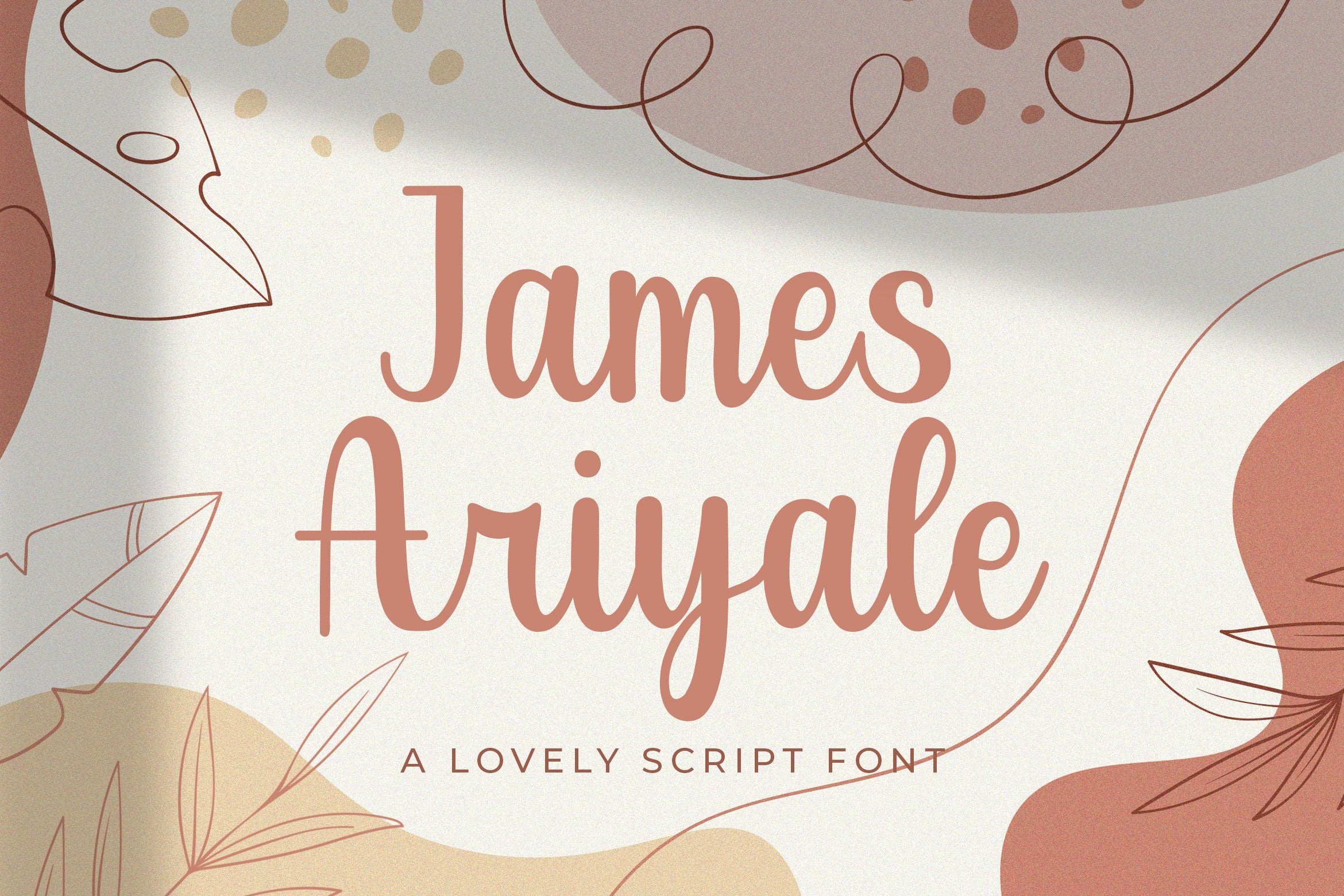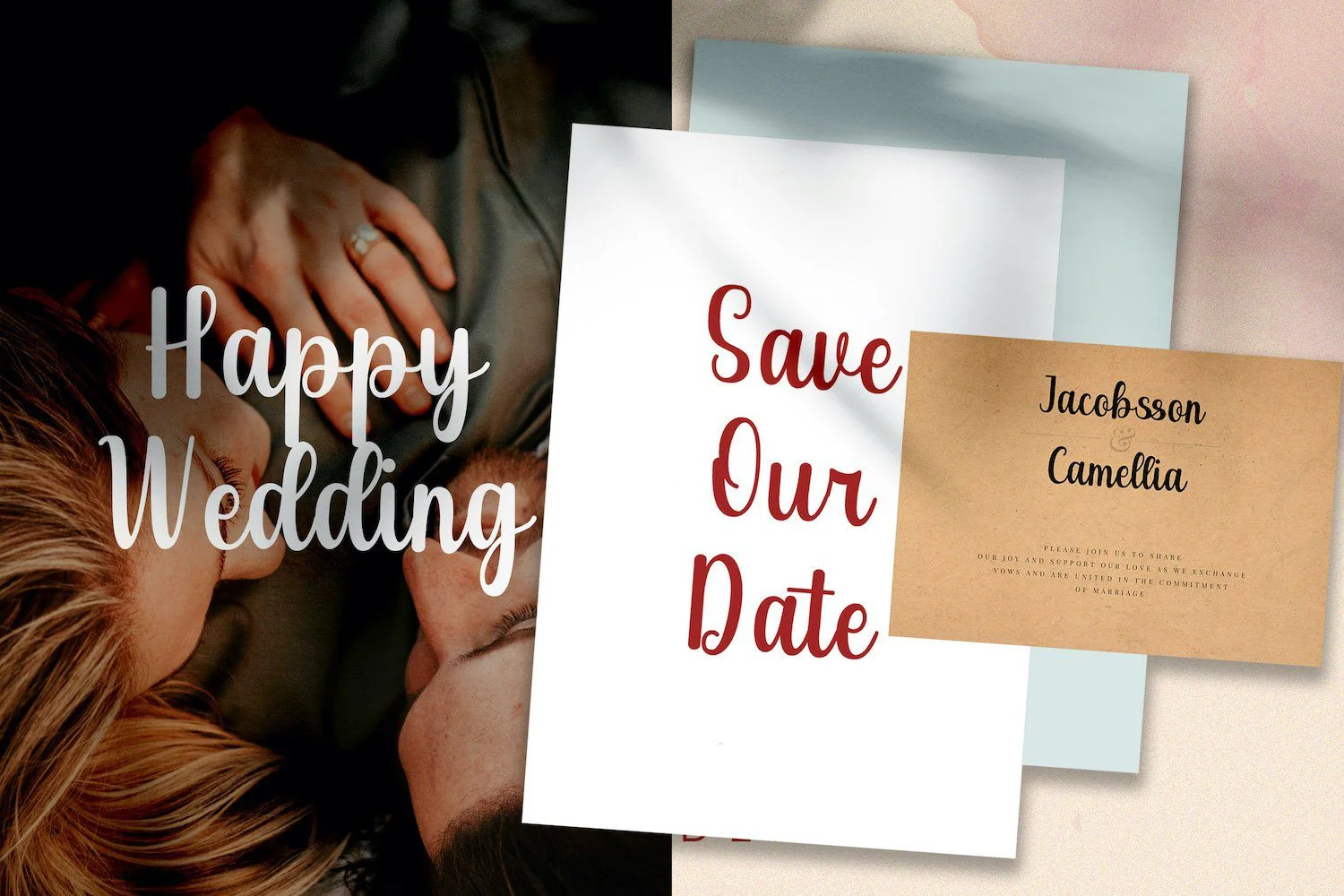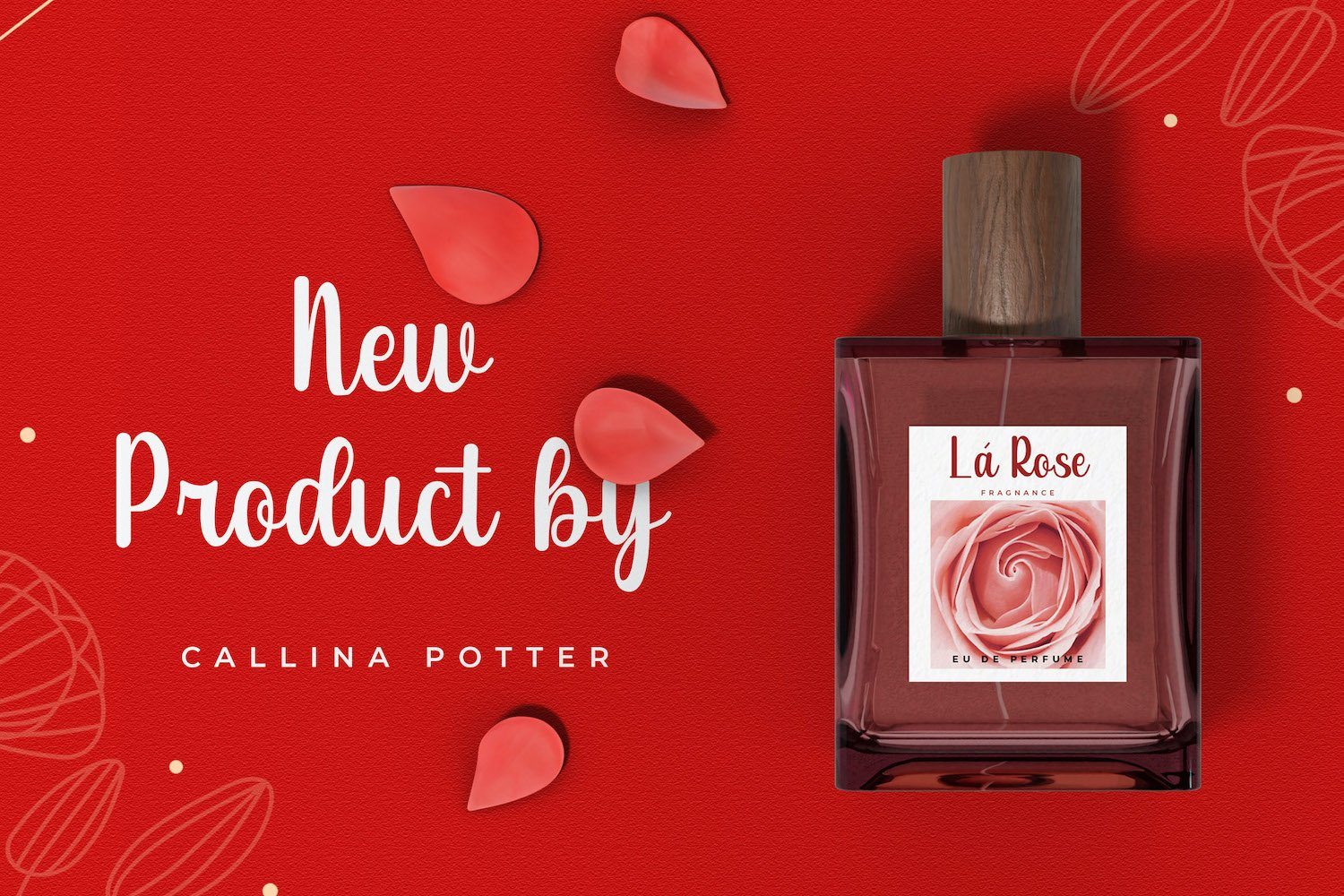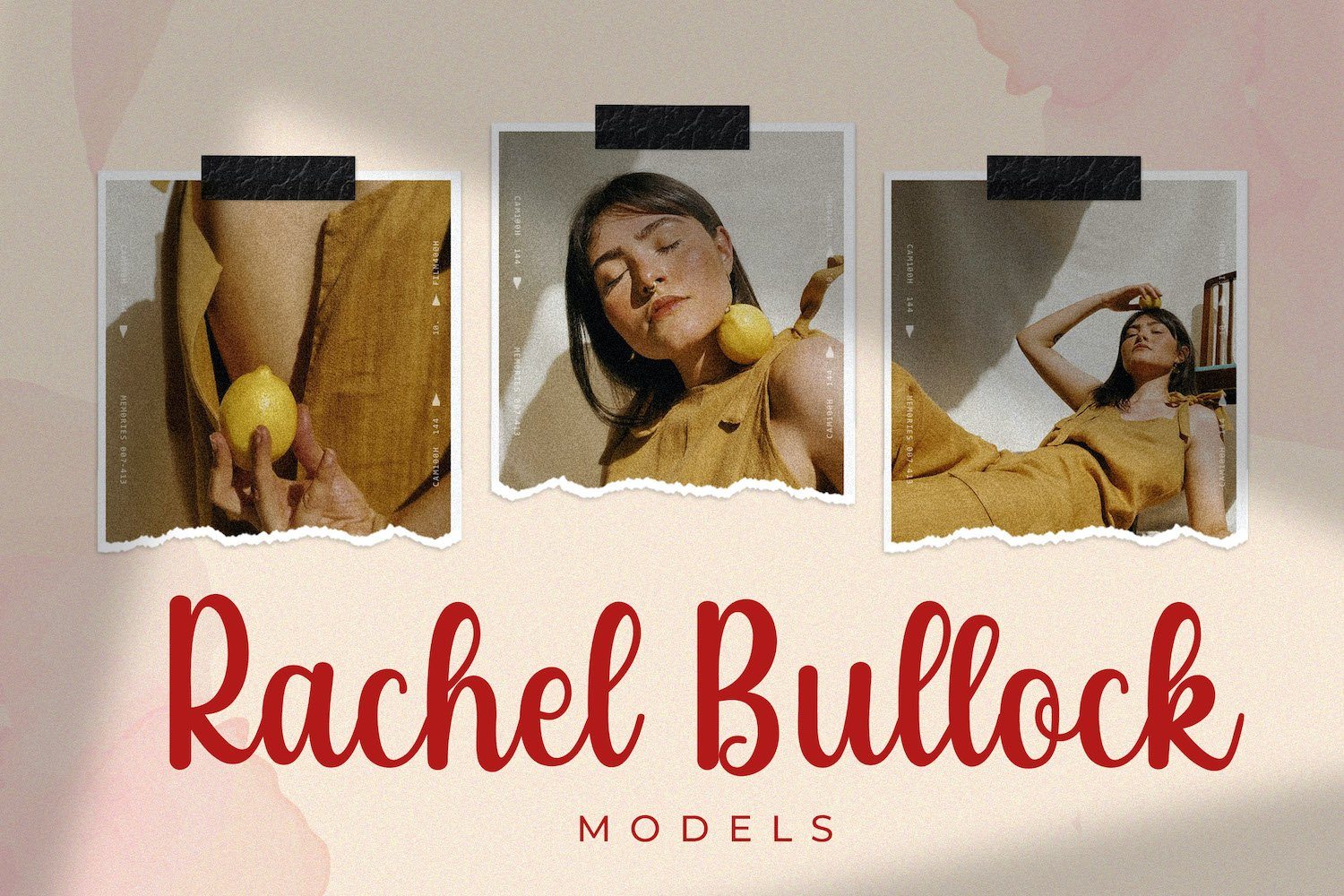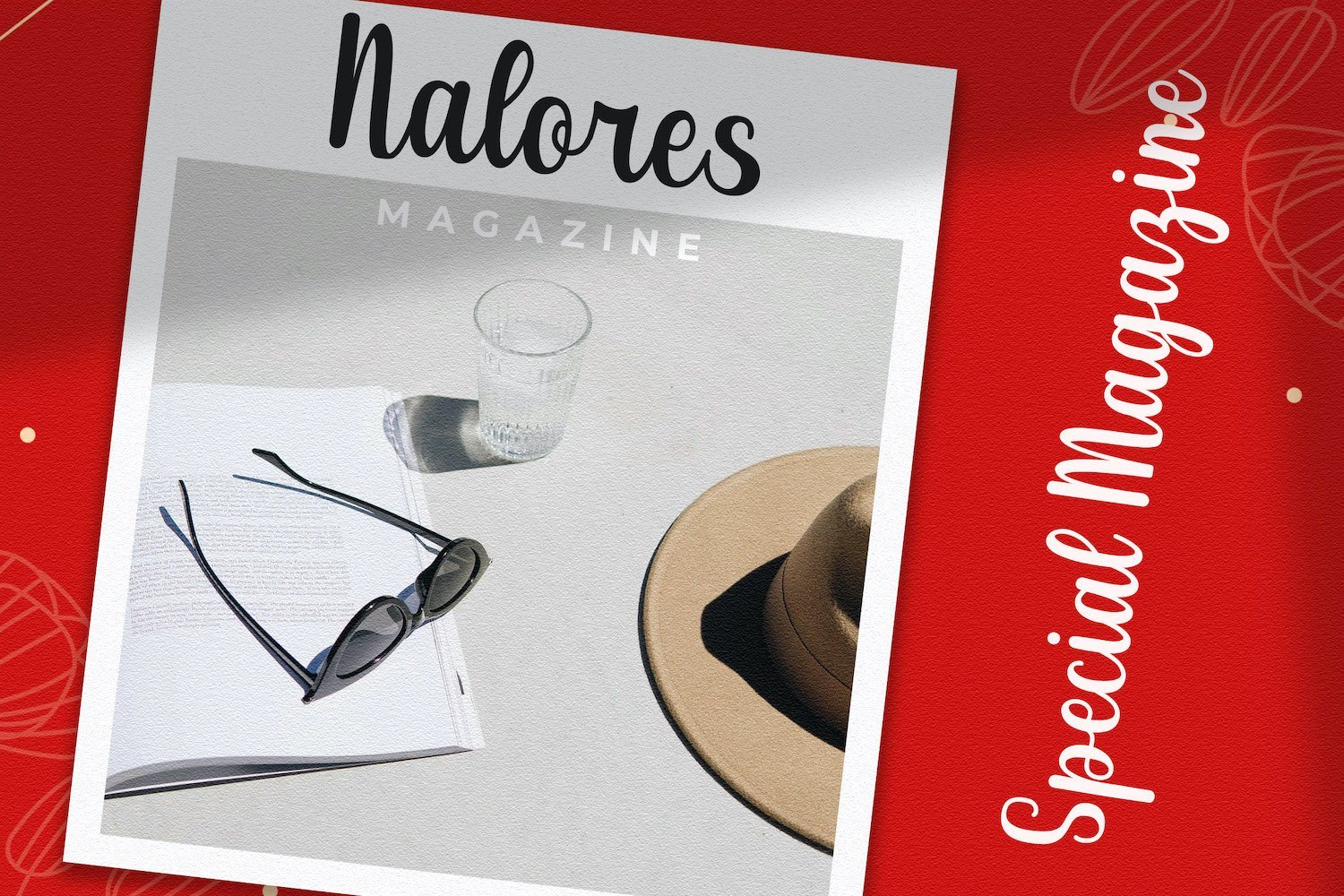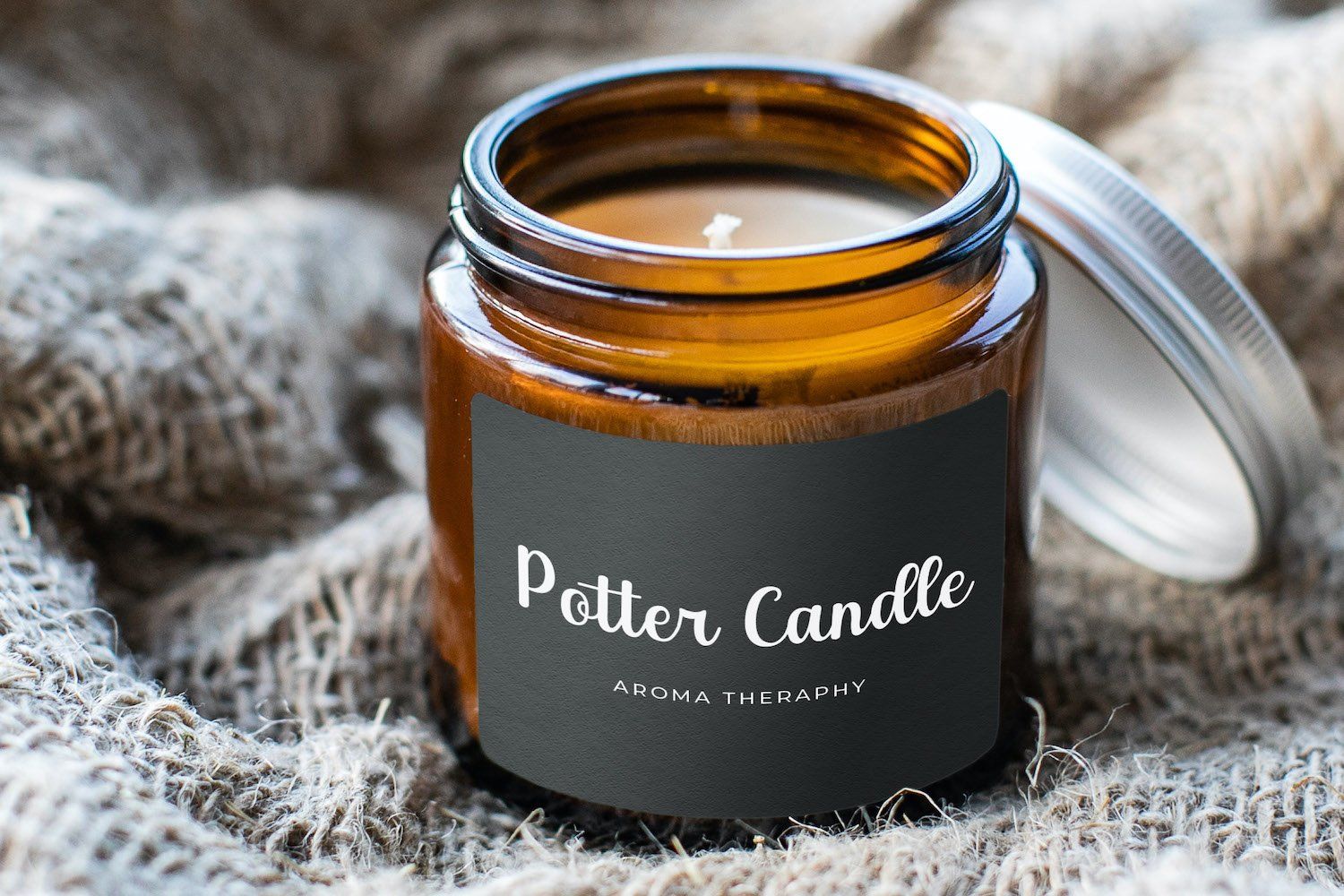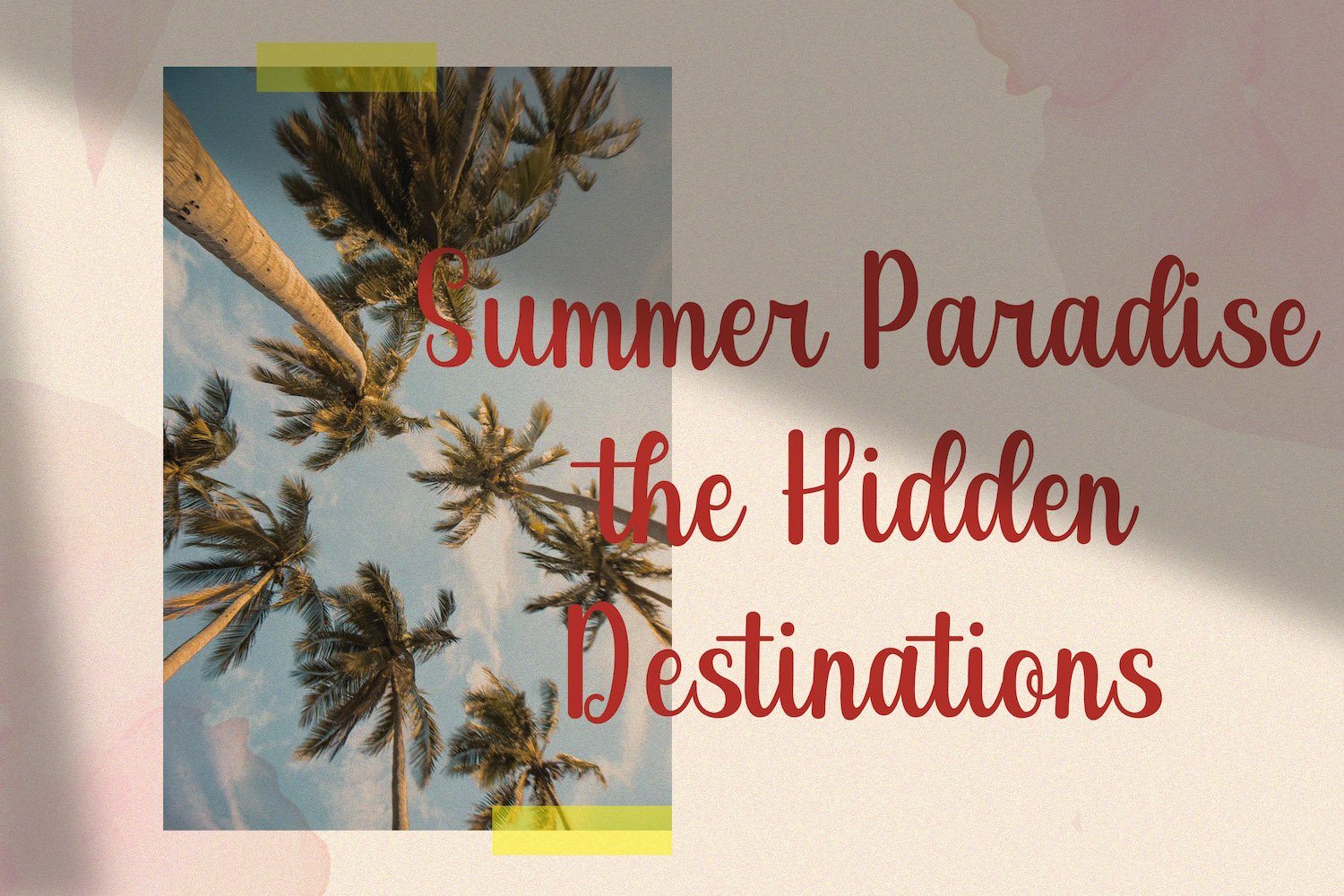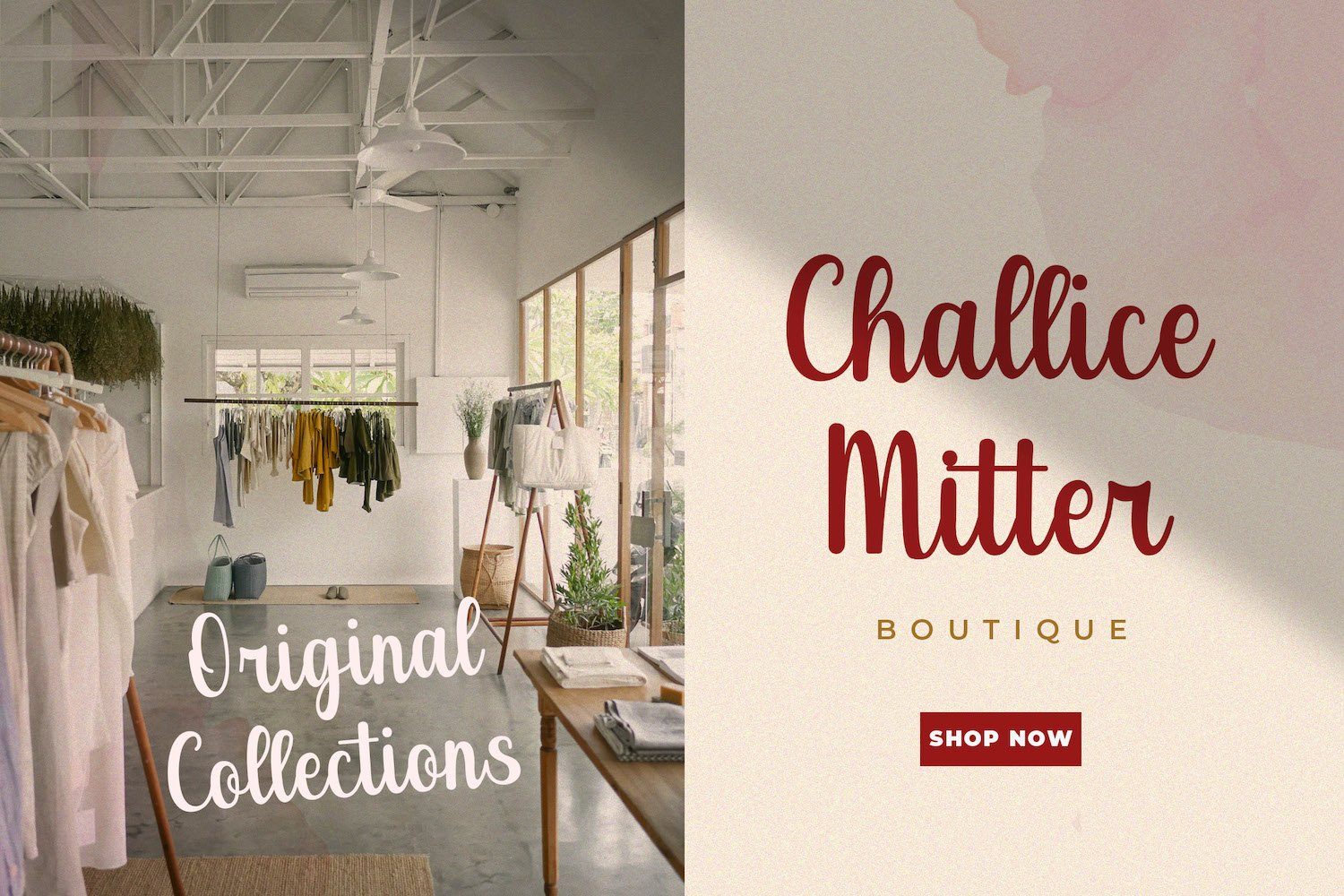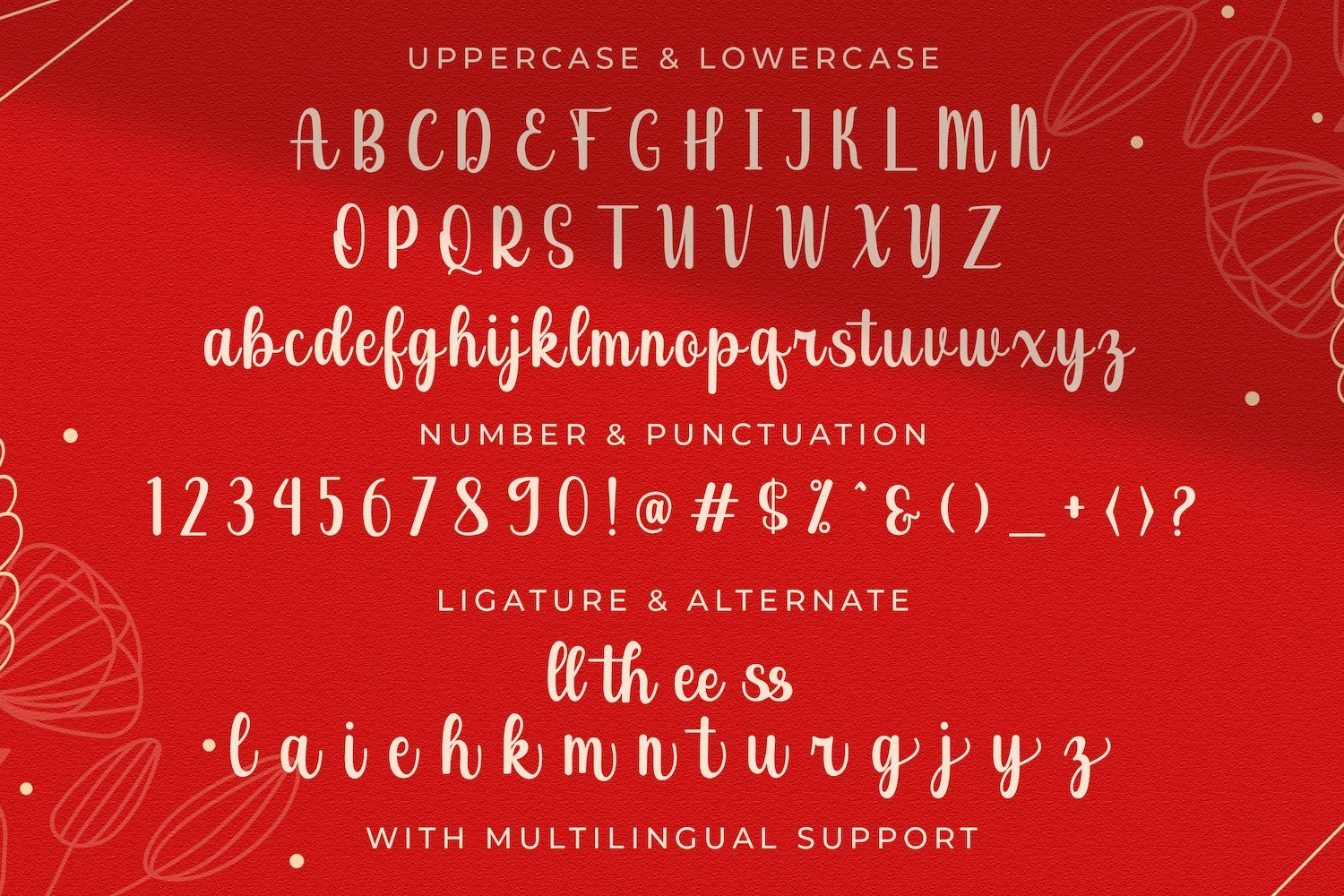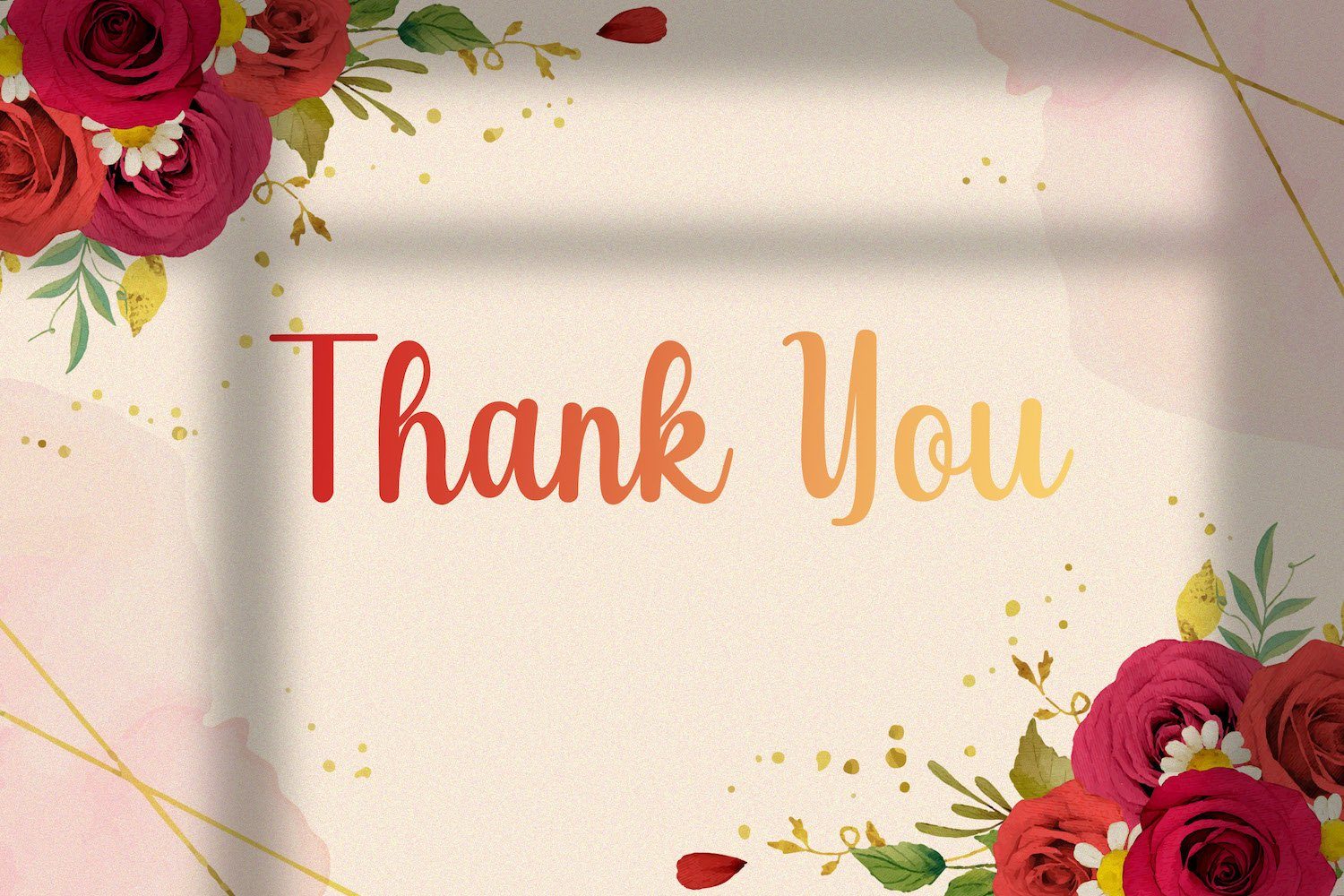
James Ariyale - Handwritten Font
Introducing James Ariyale - Handwritten Font
James Ariyale is a delicate, elegant and flowing handwritten font. It has beautiful and well balanced characters and as a result, it matches a wide pool of designs. Add it to your most creative ideas and notice how it makes them come alive!